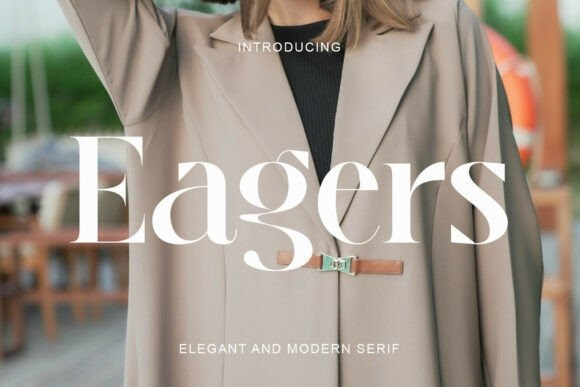
Eagers Font
Eagers Font a striking display serif typeface that captures an “ambitious-and-avant-garde” soul. This font features heavy, high-contrast letterforms uniquely characterized by their sharp, razor-thin serifs, deep fluid joints, and a distinctive curving lowercase “g” that loops into a dramatic, sweeping tail, seamlessly bridging the gap between vintage high-fashion editorial layouts and modern editorial branding. With its commanding structural weight and undeniably premium presence, Eagers is the premier choice for independent luxury cosmetic identities, boutique fashion house logos, upscale apparel styling, and high-impact “sleek-and-authoritative” social media headers.